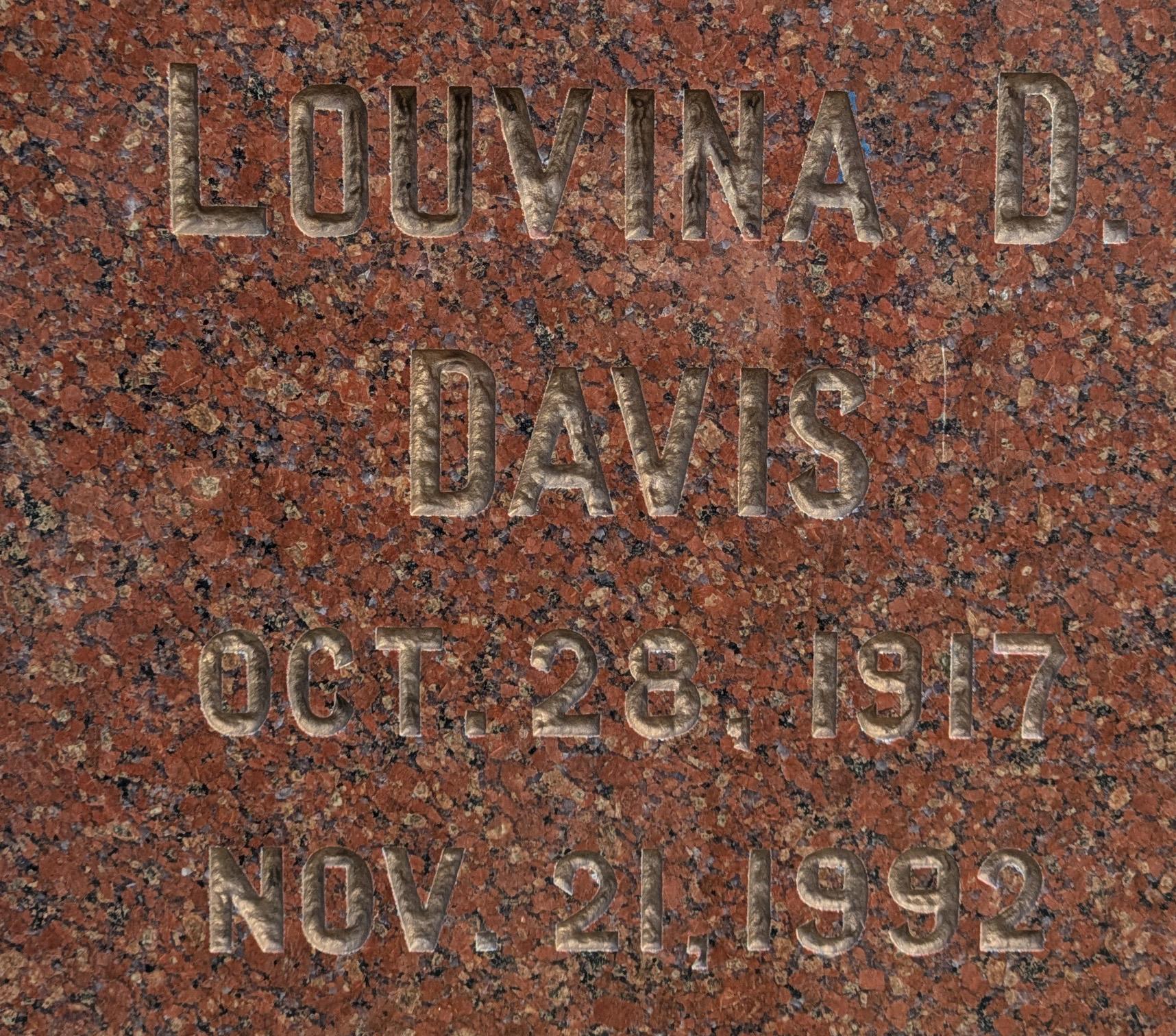
Hello this is my first post….hope someone can help me find a digital font that matches or is similar to this…
It’s the S (pointed slants on ends), 8 (square centers) and 9 (pointed slant on end and square center) that are tripping me up in my search. They were possibly done by hand with some added touches by the maker. Thanks in advance – Ryanupright monument.
Hi Ryan, yes, this appears to be hand-drawn lettering, with some noticeable variation between characters like A, 2, and 9. I am not aware of any font that will match terribly closely without modification. You could start with a Common Gothic and make adjustments as needed.